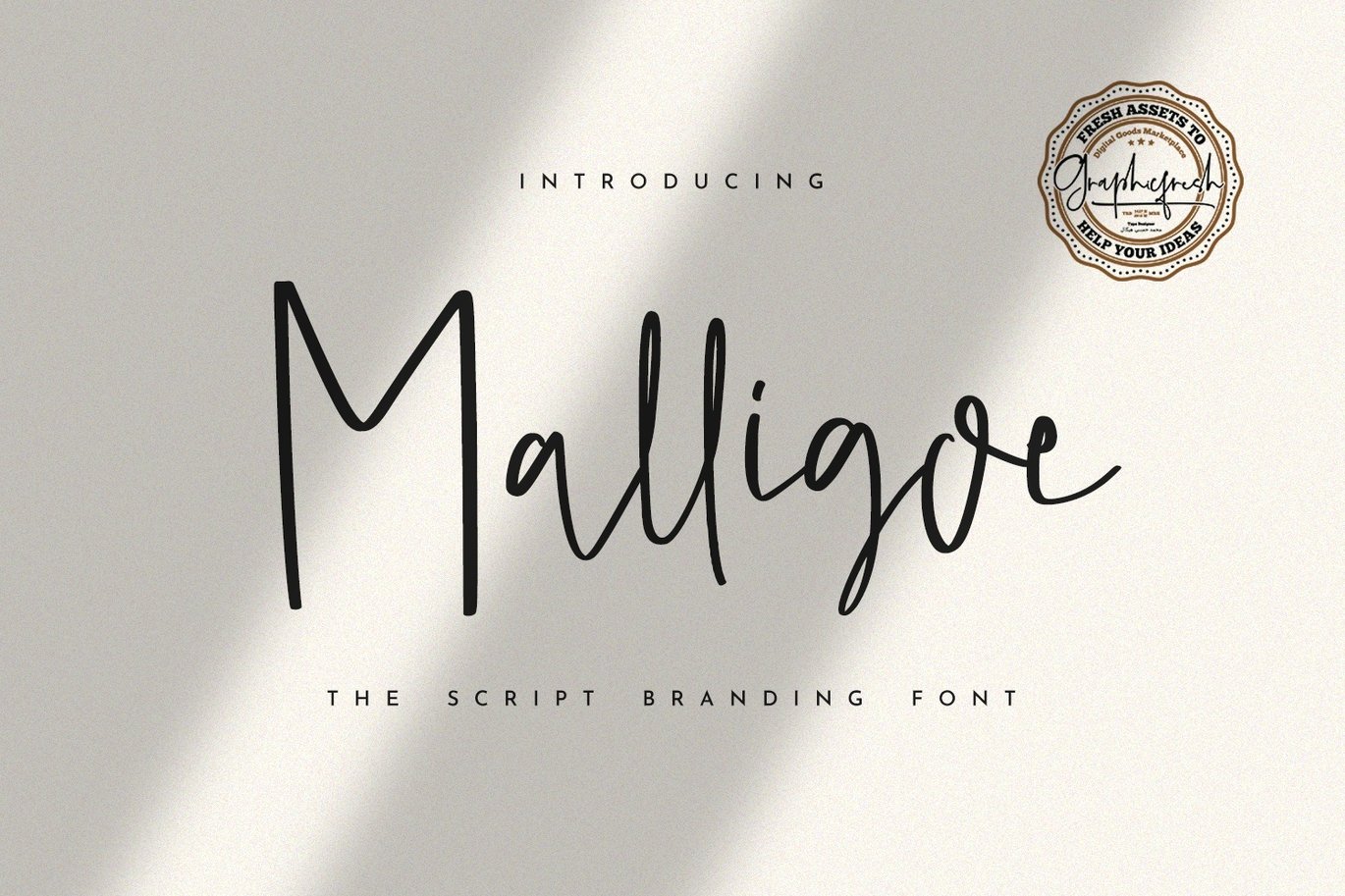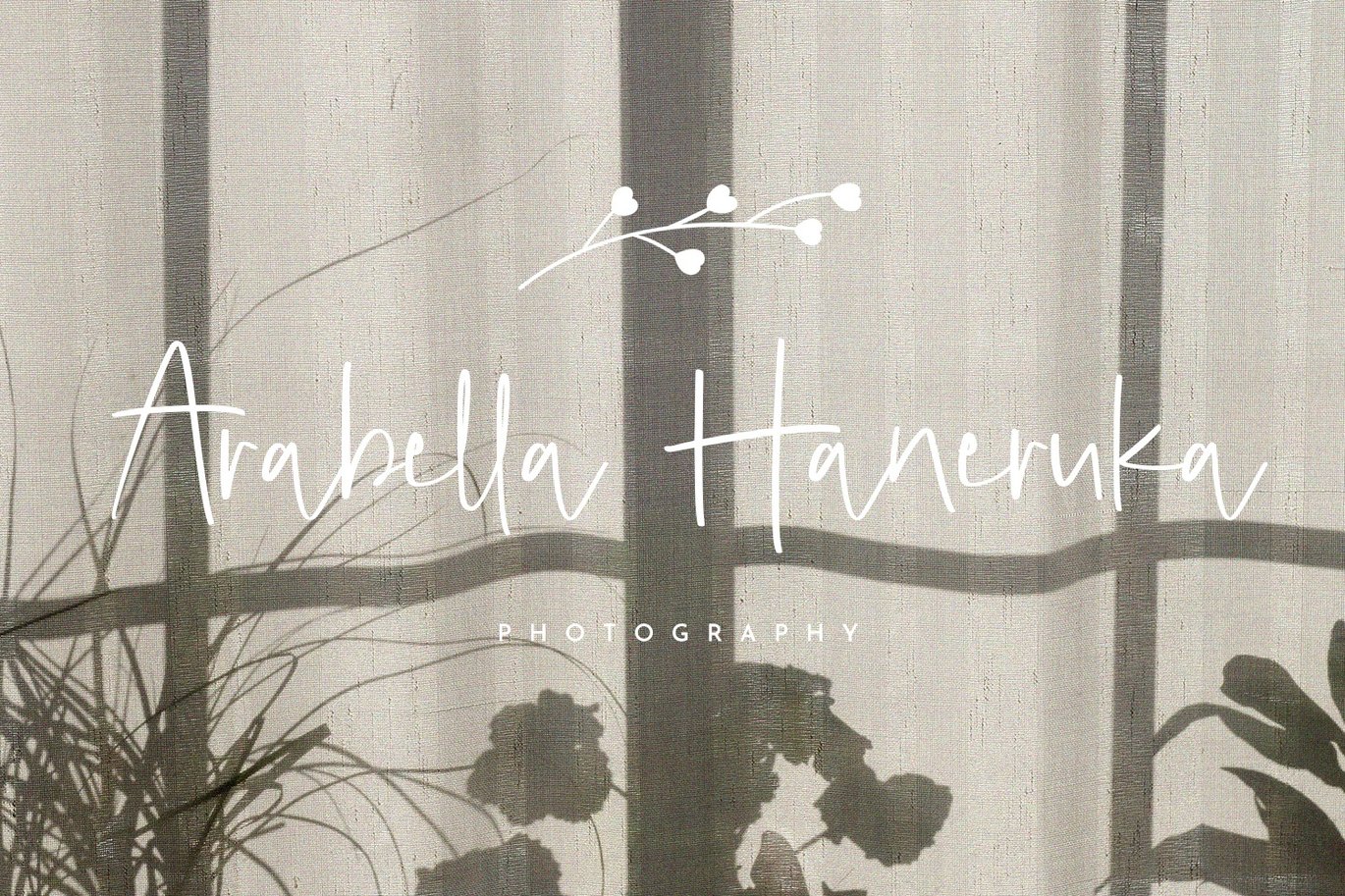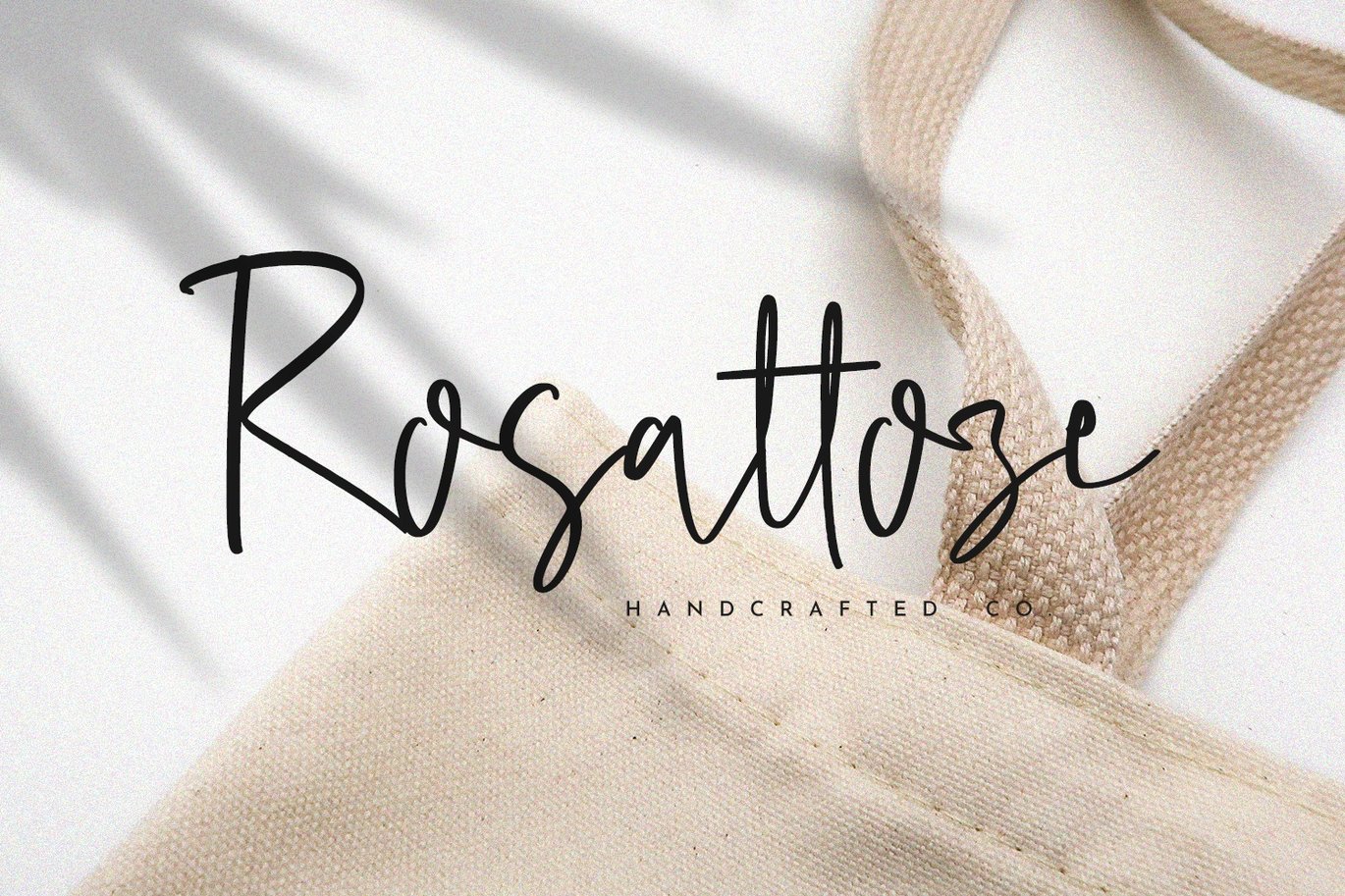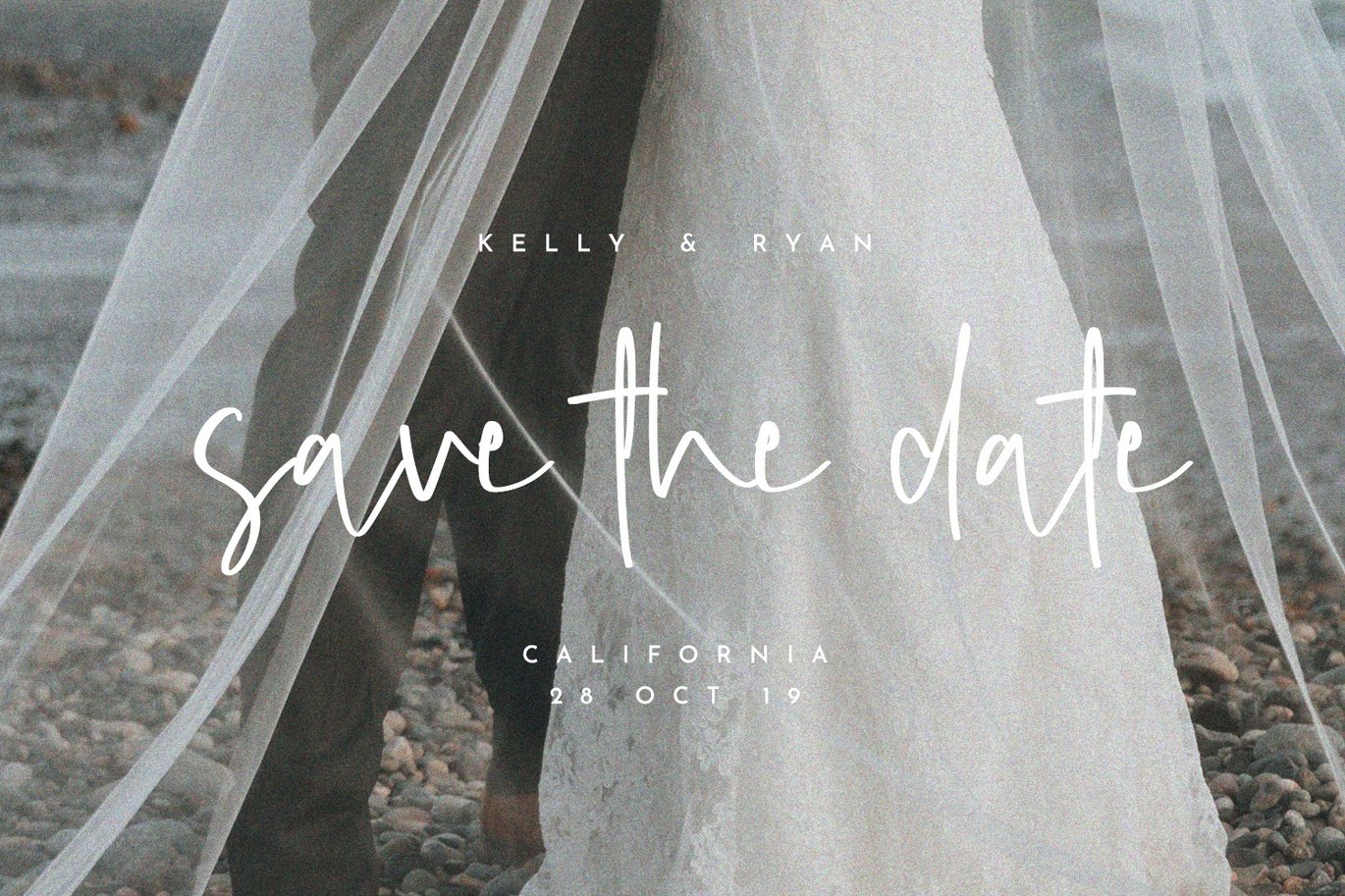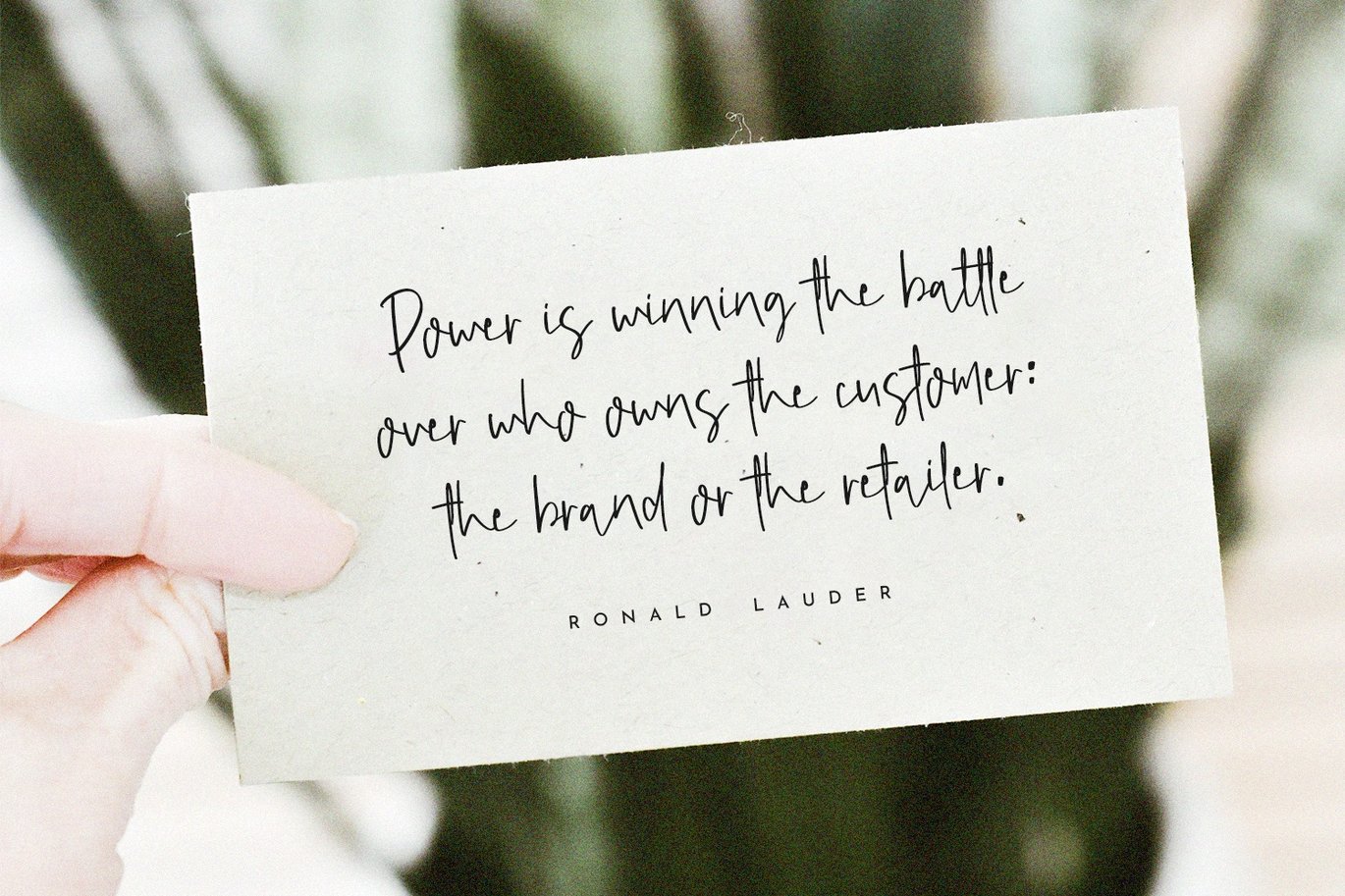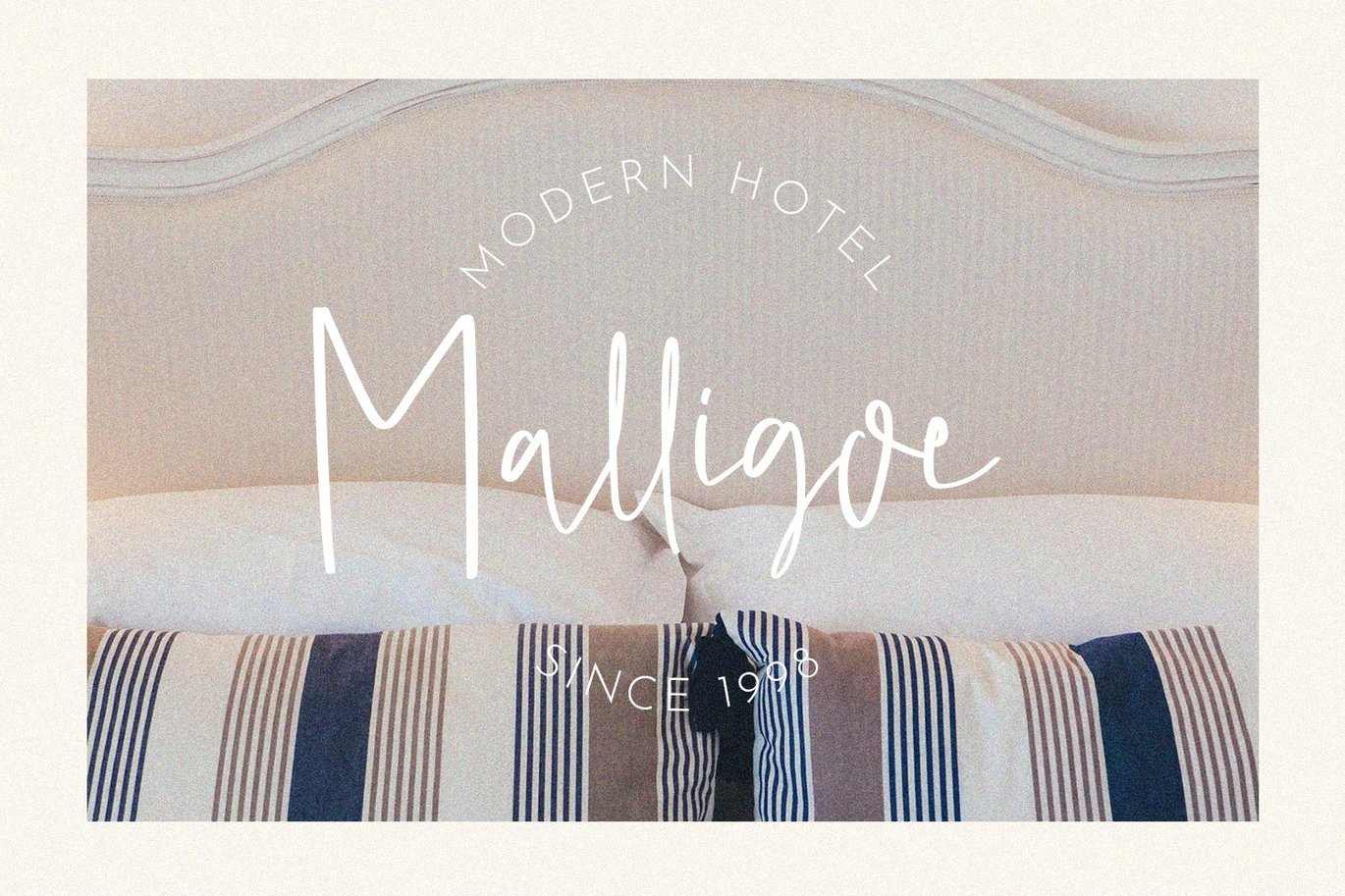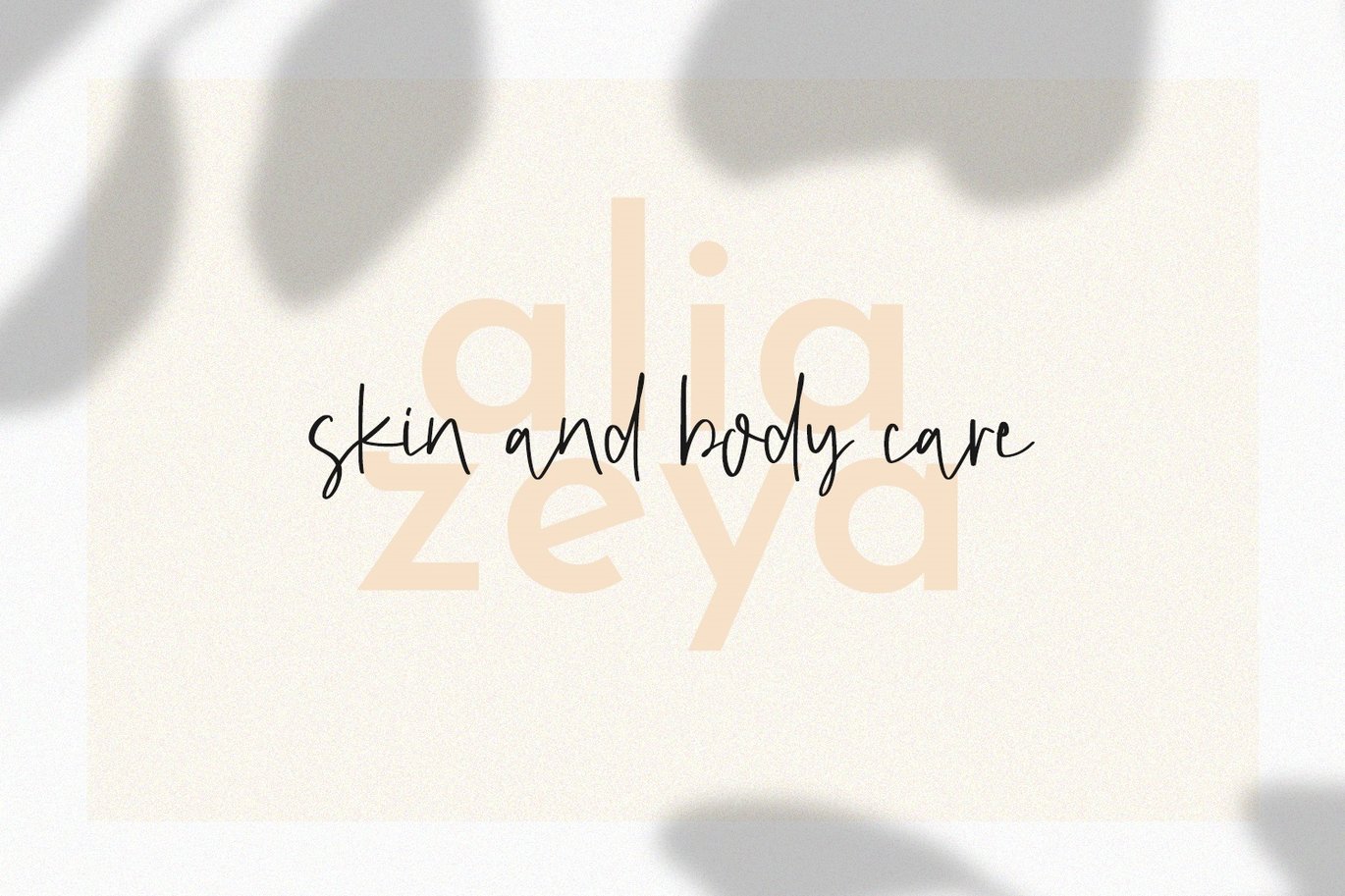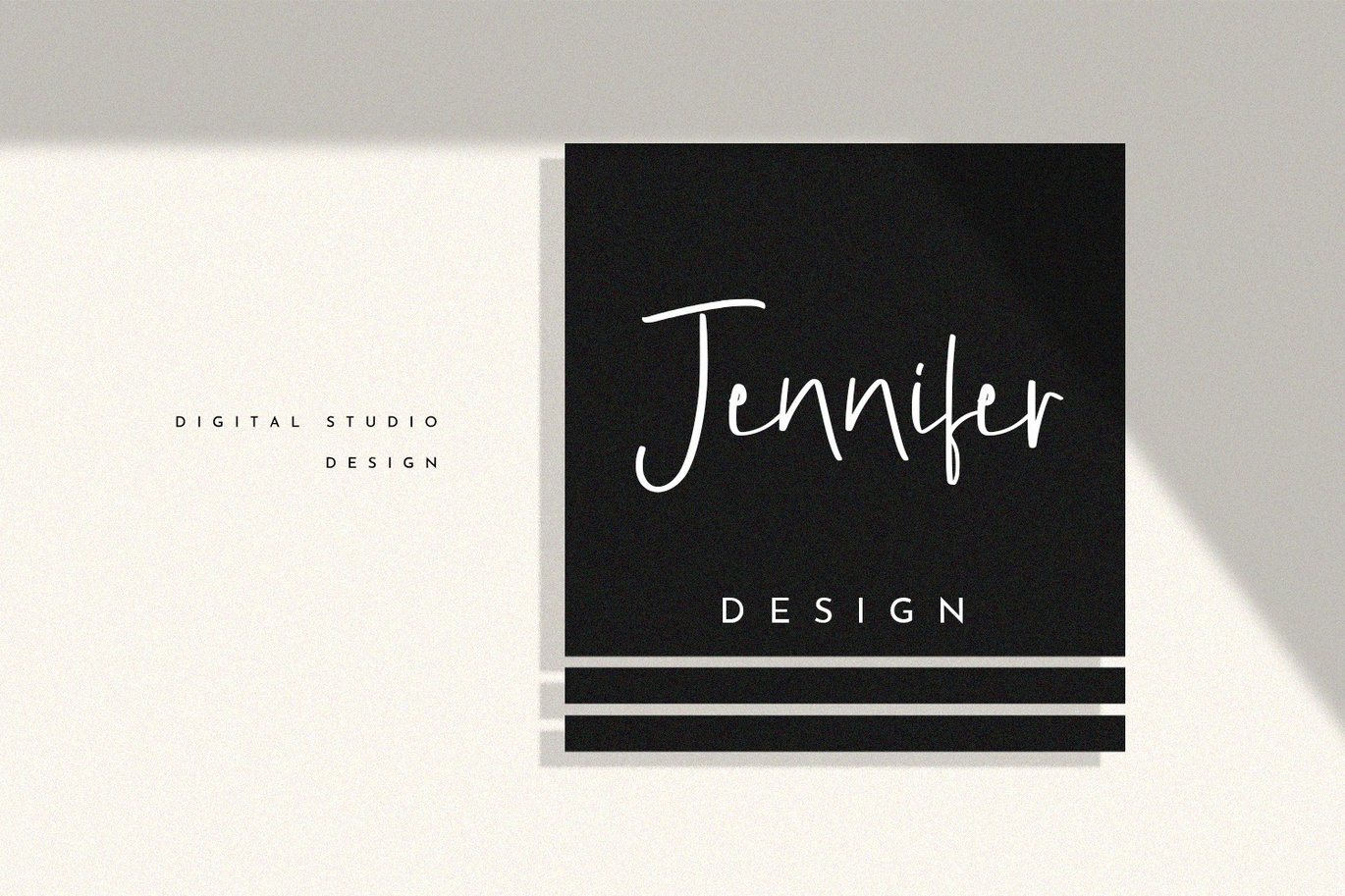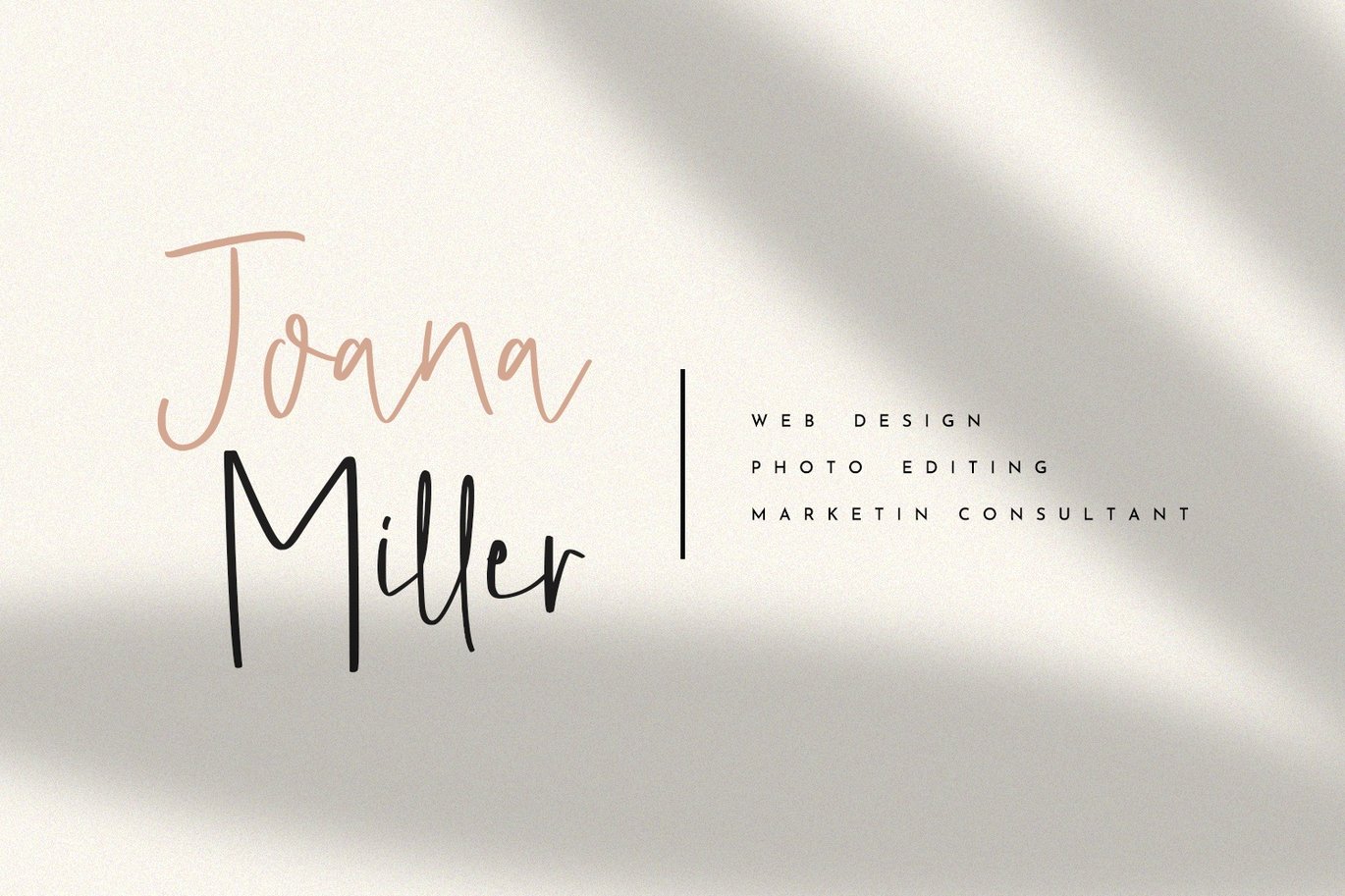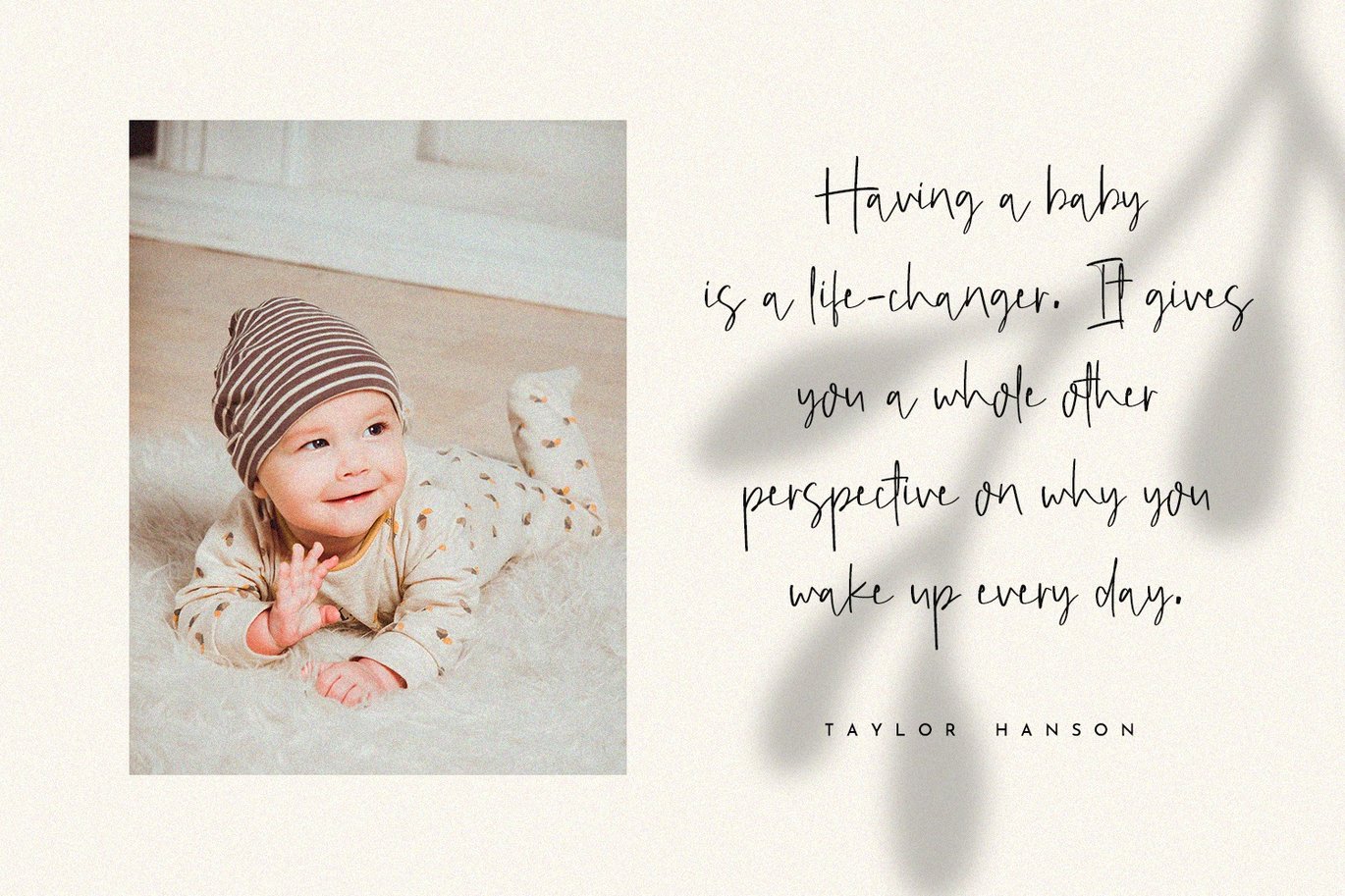
Malligoe – The Script Branding Font
“A brand for a company is like a reputation for a person. You earn reputation by trying to do hard things well.” Jeff Bezos
Back to the statement above, we made a handwritten font to elevate your brand. This font is perfect for making a logo or writing about your business. So, don’t forget to collect it.
Malligoe – The Script Branding Font
Malligoe – The Script Branding Font. It comes with an elegant, cute and feminine style which is perfect to make any design stand out! This font is perfect for branding, wedding invites, magazines, mugs, business cards, quotes, posters, and more.
- Suitable for Headlines, Logotypes, Signs, Posters, Letterhead, T-Shirt and many more.